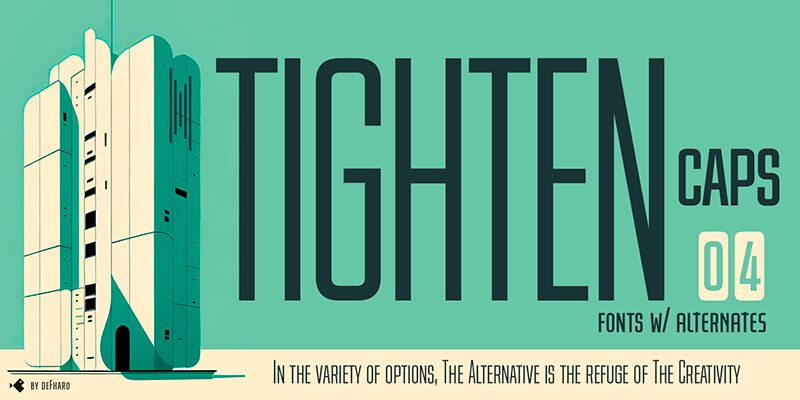
Tighten Caps Regular
Tighten Caps is available in four weights: Light, Regular, Medium and Bold, each designed to suit a wide range of creative projects, is exceptionally versatile and is recommended for a variety of applications, from editorial typesetting, brochure design, product packaging, to logo creation or signage.
Tighten Capitals offers a new dimension of possibilities with the inclusion of three sets of uppercase letters: Caps, Small Caps and Petite Caps, plus two complete alternative sets, as well as several sets of numbers (numerators, denominators, scientific numbers, ordinals, etc.) accessible from the Open Type functions.
Tighten Caps is a compressed-style sans serif typeface family with multiple options (Advanced Open Type Features), making it an essential tool for any designer seeking the balance between elegance, functionality and efficiency; Tighten Capitals not only saves space, but elevates the aesthetic quality of any project where graphic differentiation is essential.
Tighten Capitals is available in four weights: Light, Regular, Medium and Bold, each designed to suit a wide range of creative projects.